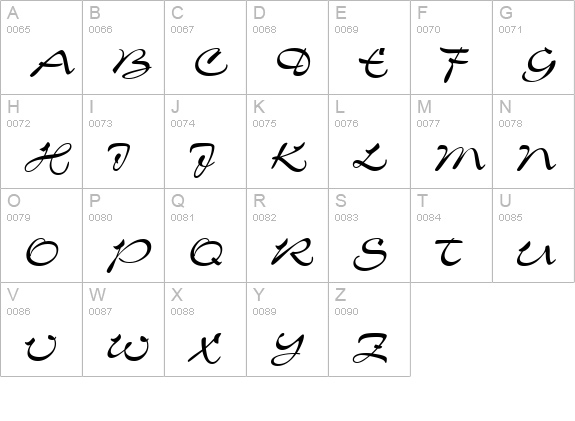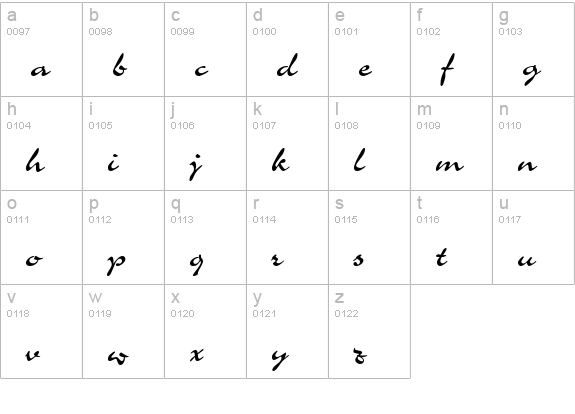
C721-Script-Regular is the standard, neutral variant in the C721 typeface family \xE2\x80\x94 well suited to general body text, paragraphs, and standard typographic work.
C721-Script-Regular is a stunning font that exudes elegance and sophistication. With its beautiful cursive style and delicate curves, this font is perfect for adding a touch of chicness to any project. Whether you are designing invitations, logos, or branding materials, C721-Script-Regular is sure to make a statement. What's even better is that this font is available for free download at FontsMarket.com. You can easily access this gorgeous typeface and use it in your designs without any cost. Don't miss out on the opportunity to enhance your projects with the timeless beauty of C721-Script-Regular. Download it today and elevate your designs to the next level!